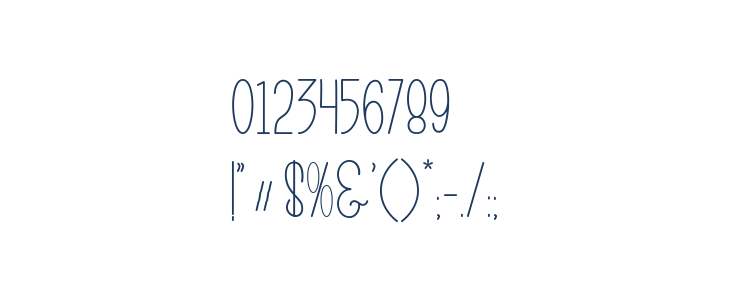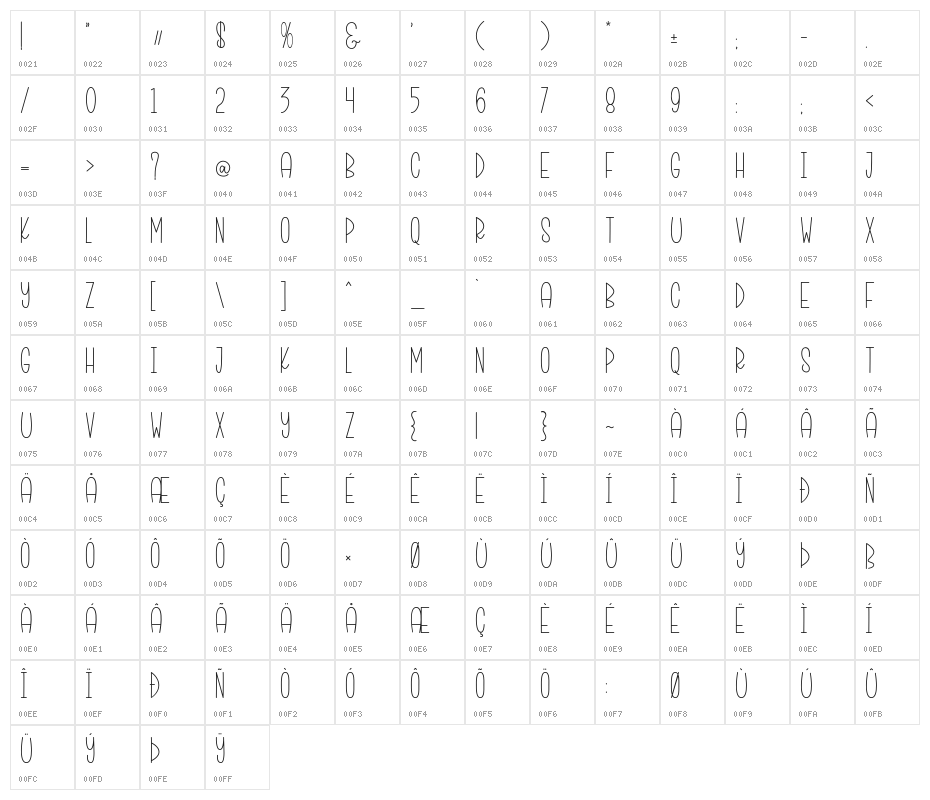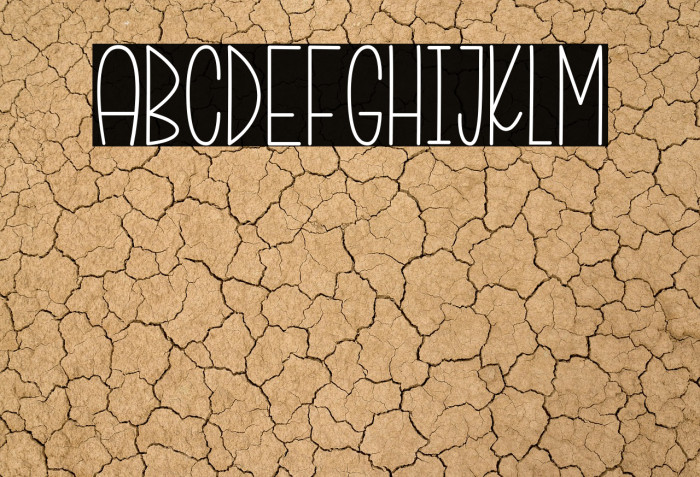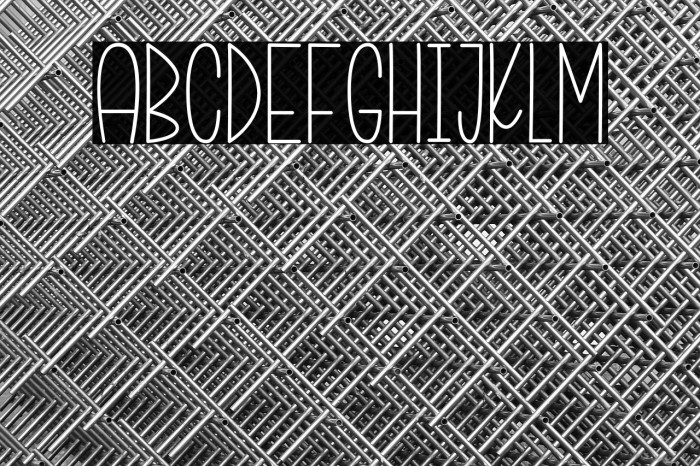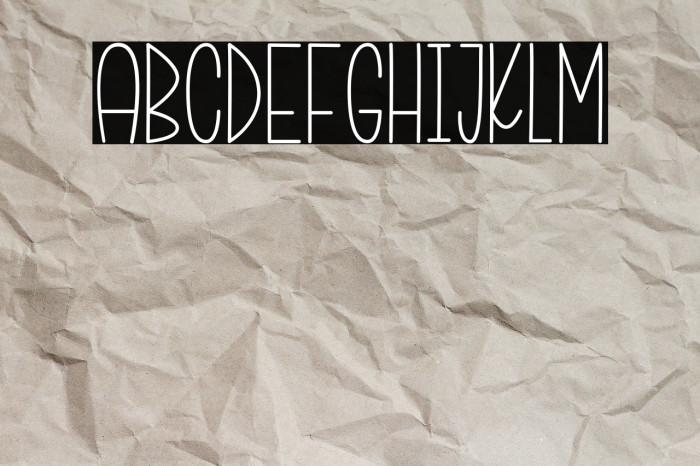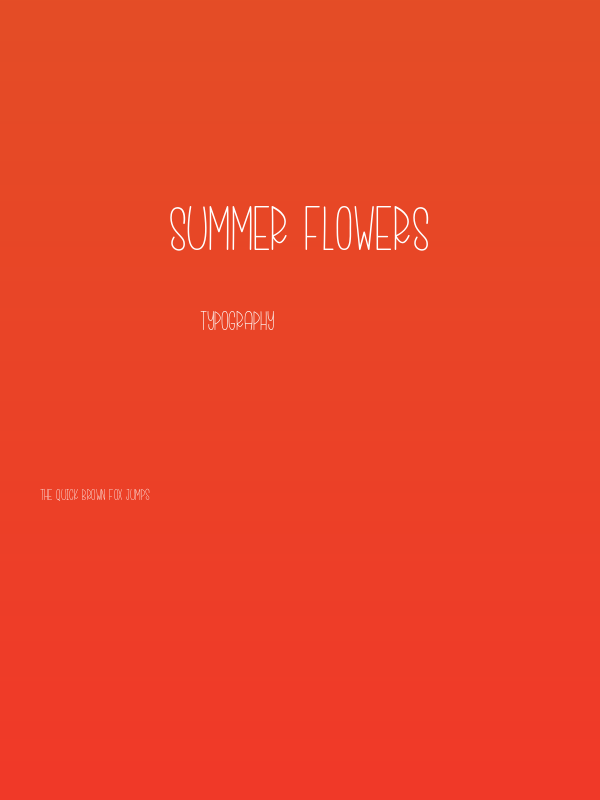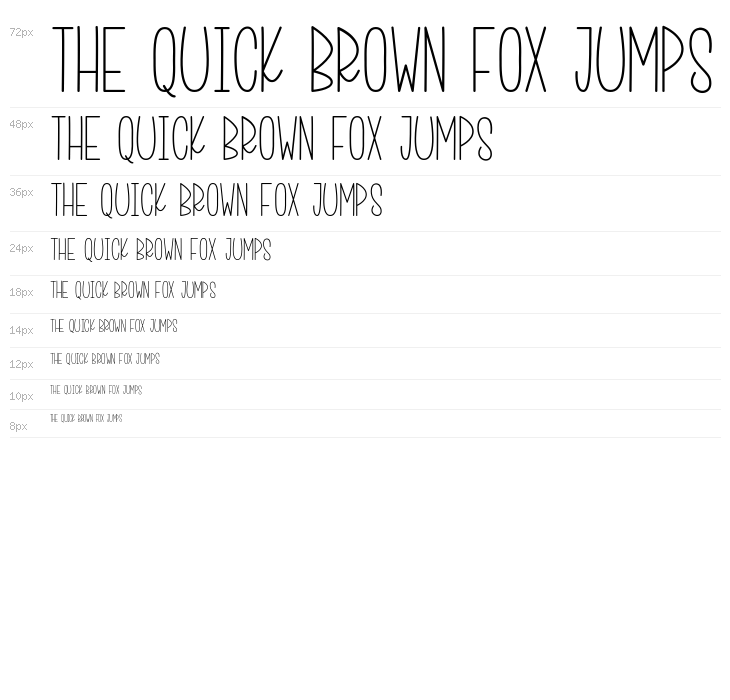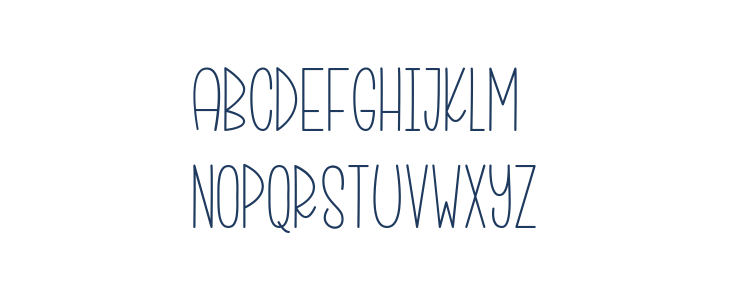
Summer Flowers Font
Summer Flowers Description
This font features a playful and whimsical design, characterized by tall, narrow letters with a slight slant. The strokes are consistent in width, giving it a clean and modern appearance. The uppercase and lowercase letters maintain a uniform height, contributing to its cohesive look. The numerals and special characters are designed to match the overall style, ensuring a harmonious visual experience. This font's unique charm makes it suitable for creative and informal projects.
| Proposed Projects | Ideal for greeting cards, children's books, playful branding, and creative posters. |